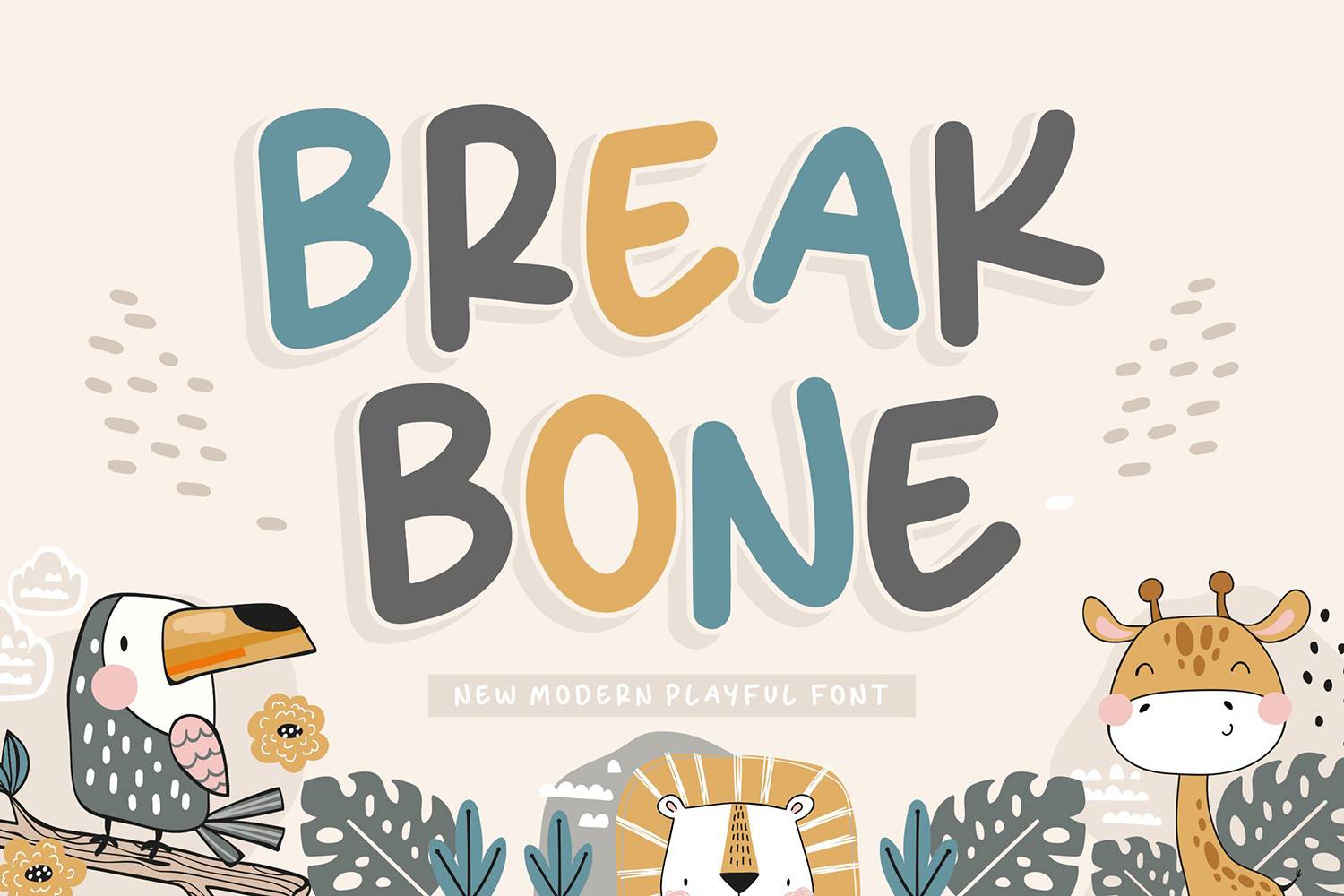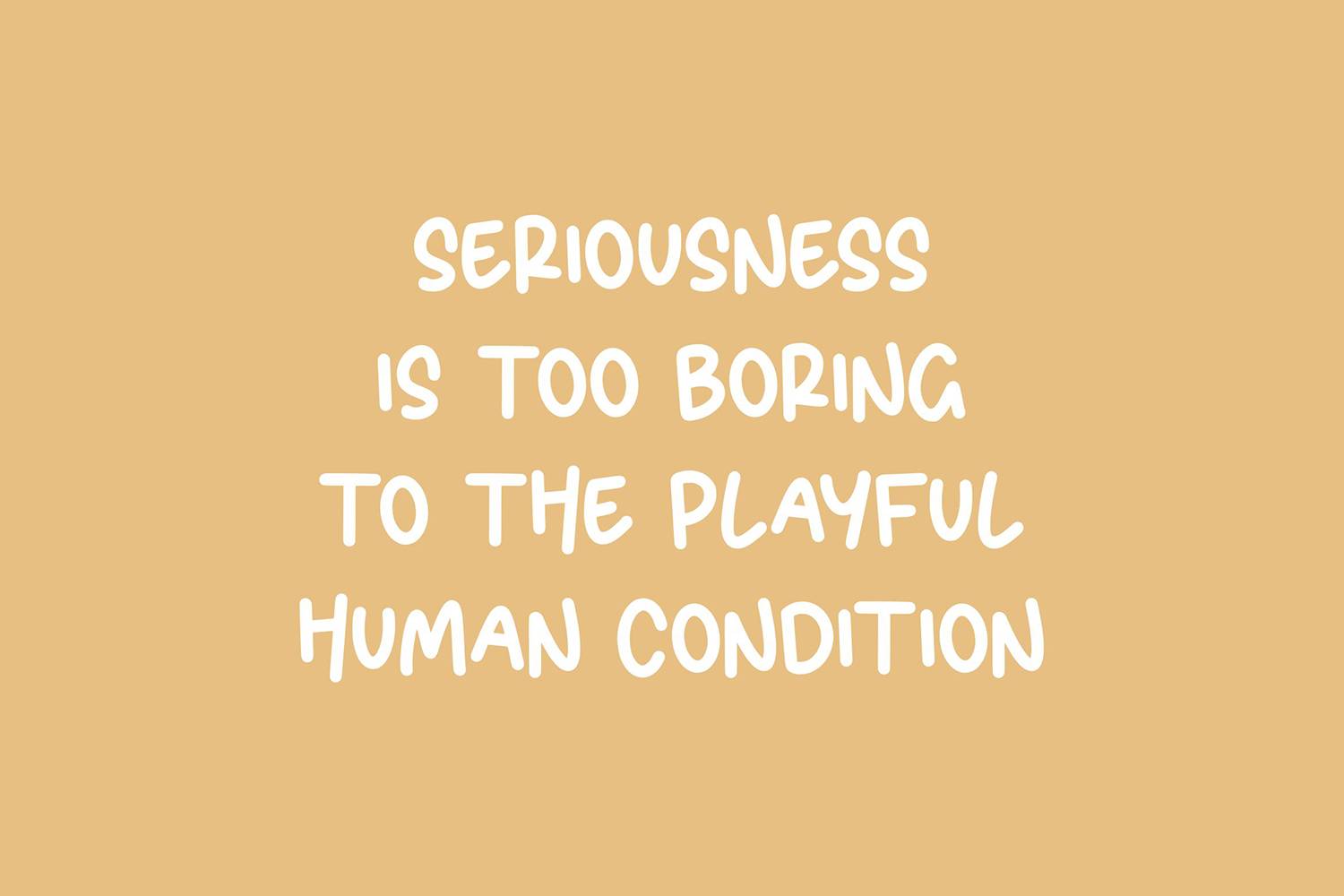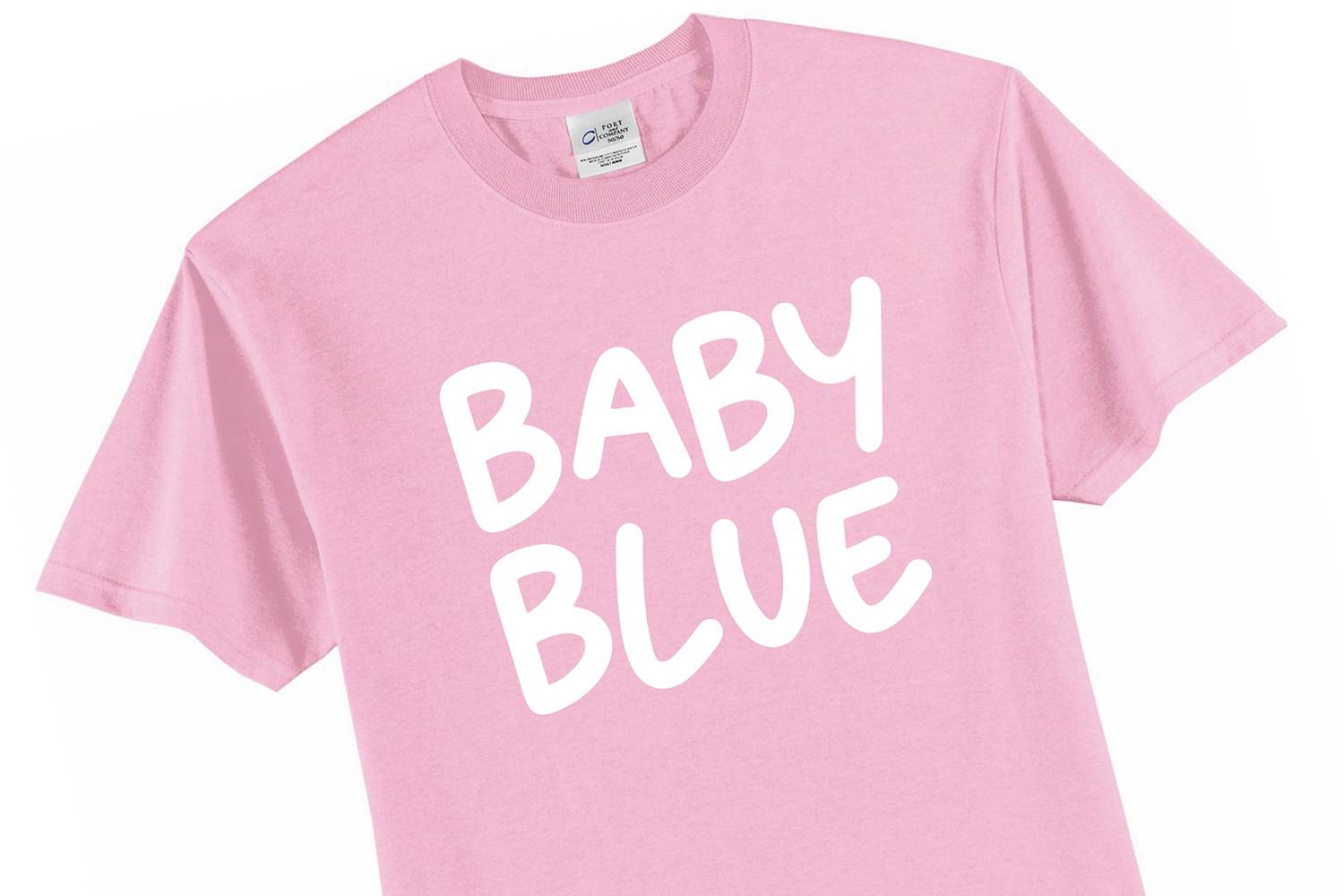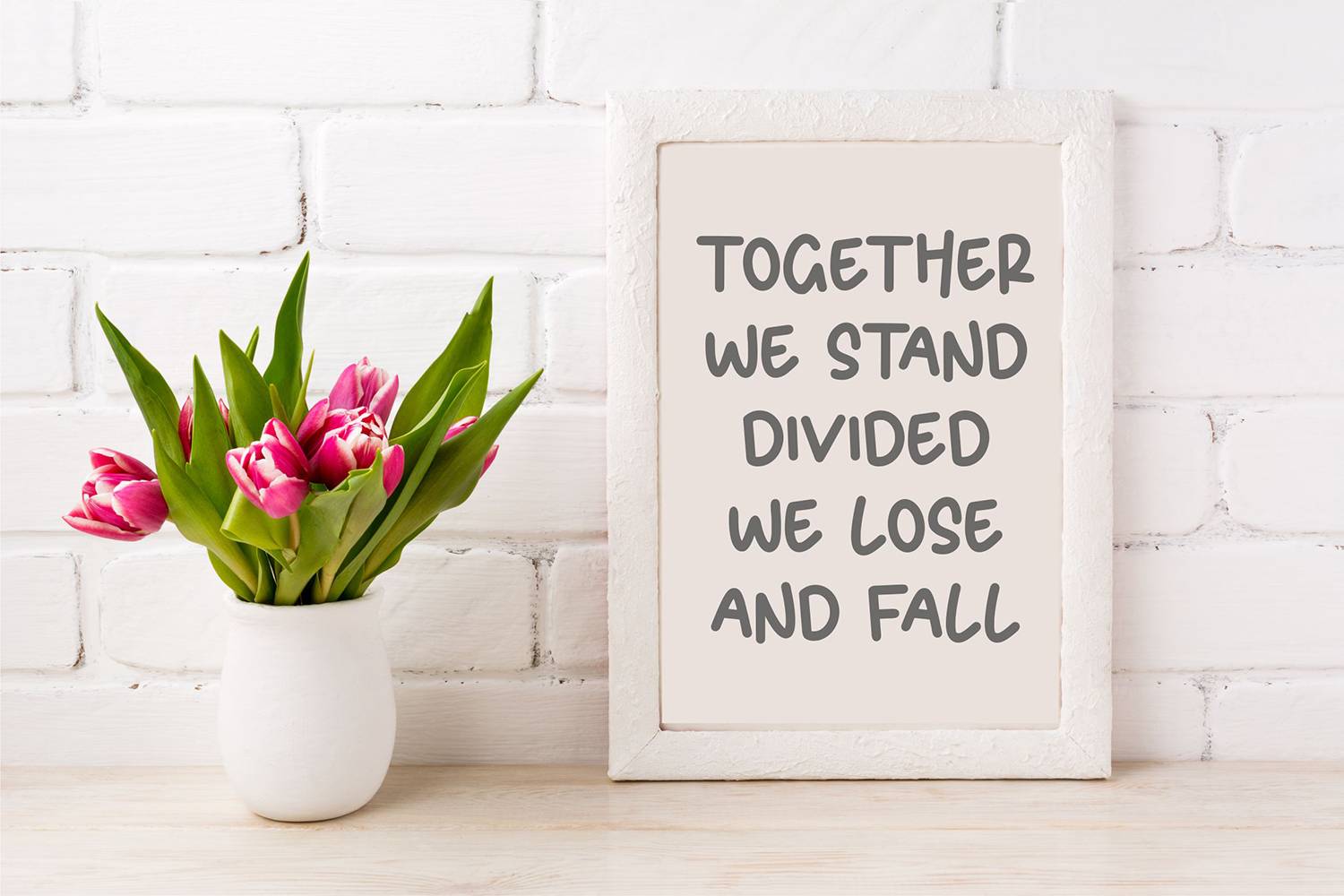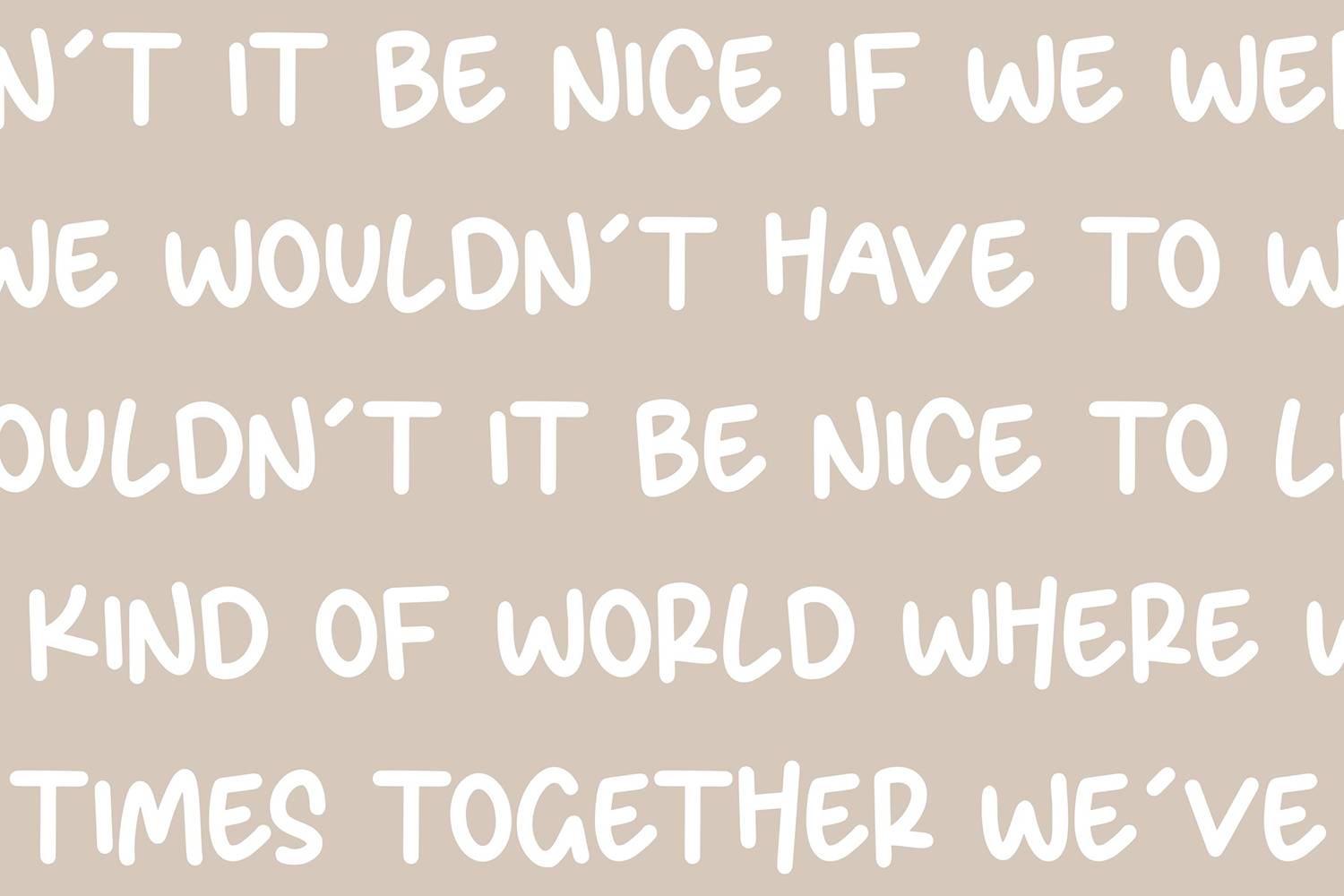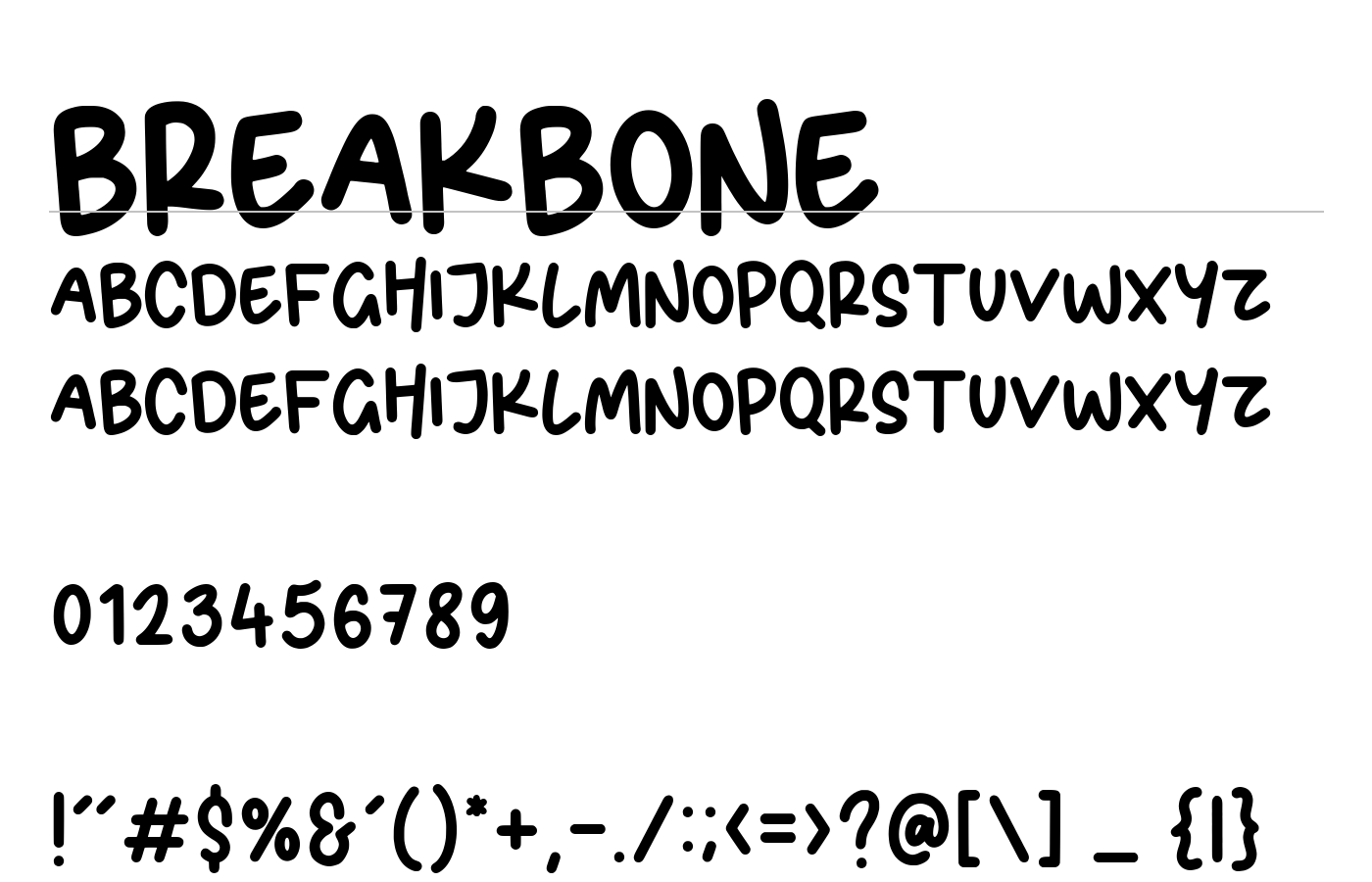
Breakbone is a playful, casual sans serif font with a handwritten feel, characterized by its rounded, slightly uneven strokes and lively letterforms. Its bold, friendly style makes it perfect for informal designs, such as children’s books, comics, or creative branding where a fun and approachable tone is desired. This font works well for headlines, logos, and any project needing an energetic and whimsical touch.
Breakbone Font
About Breakbone Font